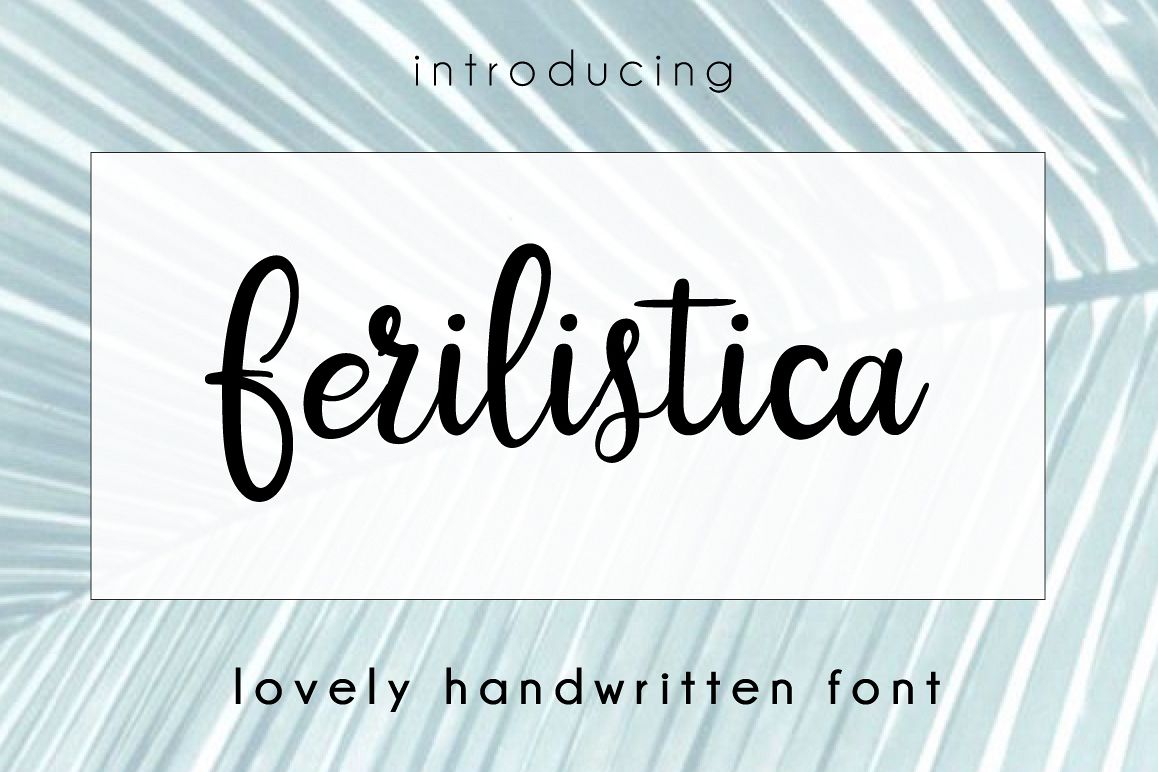
Ferilistica
Ferilistica - it's lovely handwritten brush script.
This font is ideal for branding and decorate your any project.
This font are perfect for poster or your blog. Also with their help, you can create a logo or beautiful frame for your home. Or just use for your small business, book covers, stationery, marketing, magazines and more.